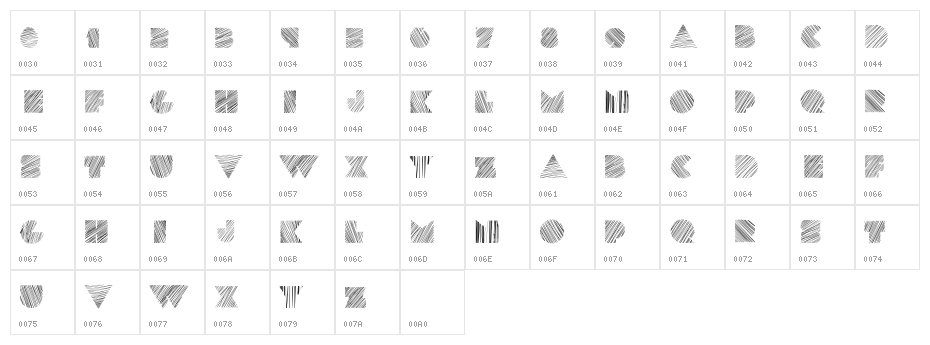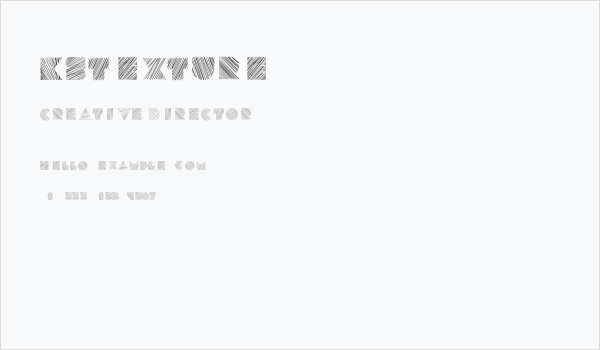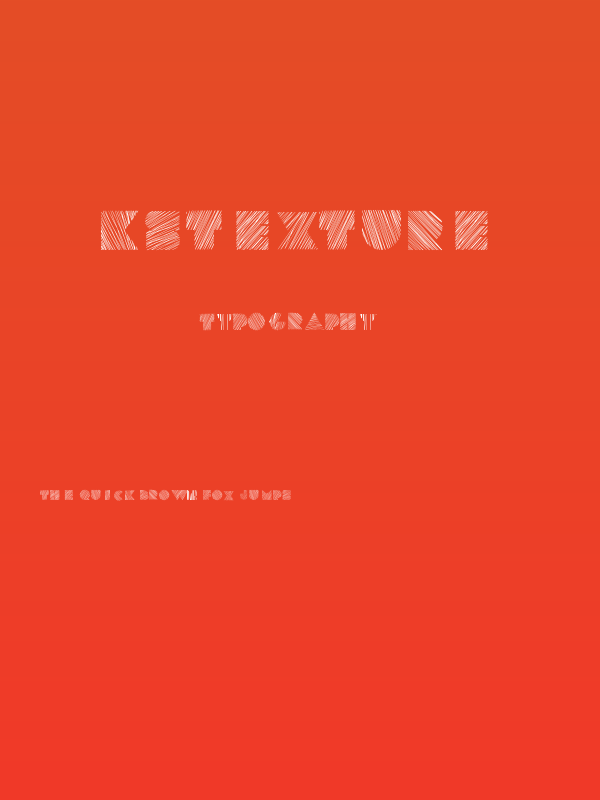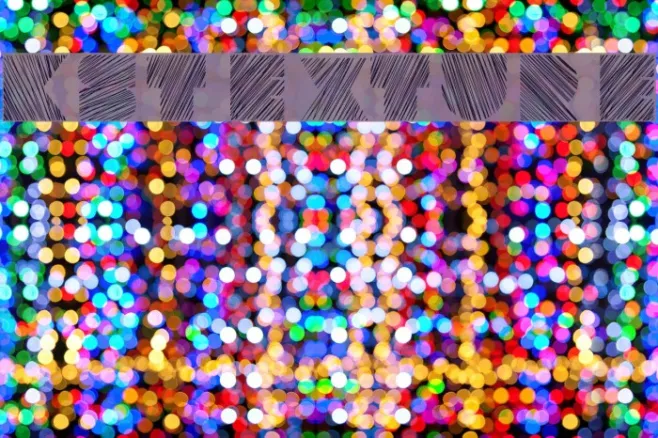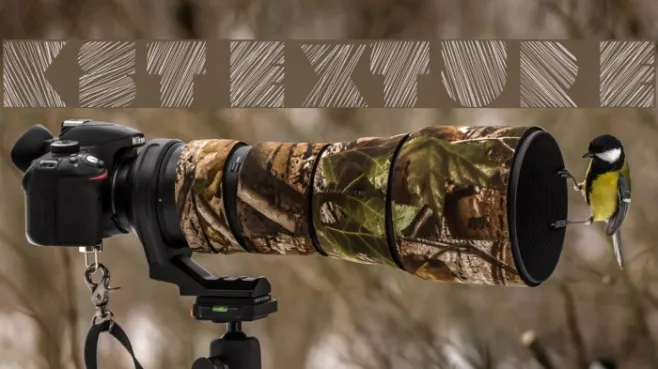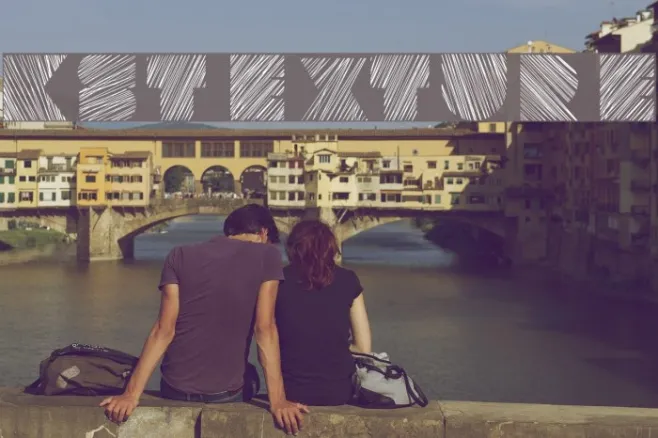
kstexture Font
kstexture Description
This font features a unique and artistic design with a textured, hand-drawn appearance. Each character is filled with diagonal lines, creating a sense of movement and depth. The letters are bold and have a geometric structure, giving them a modern and edgy look. The uppercase and lowercase letters maintain a consistent style, while the numbers and special characters are equally distinctive. This font is ideal for projects that require a creative and unconventional touch, making it perfect for artistic branding, posters, and eye-catching headlines.
KSTEXTURE UPPERCASE
KSTEXTURE LOWERCASE
KSTEXTURE OTHER CHARS